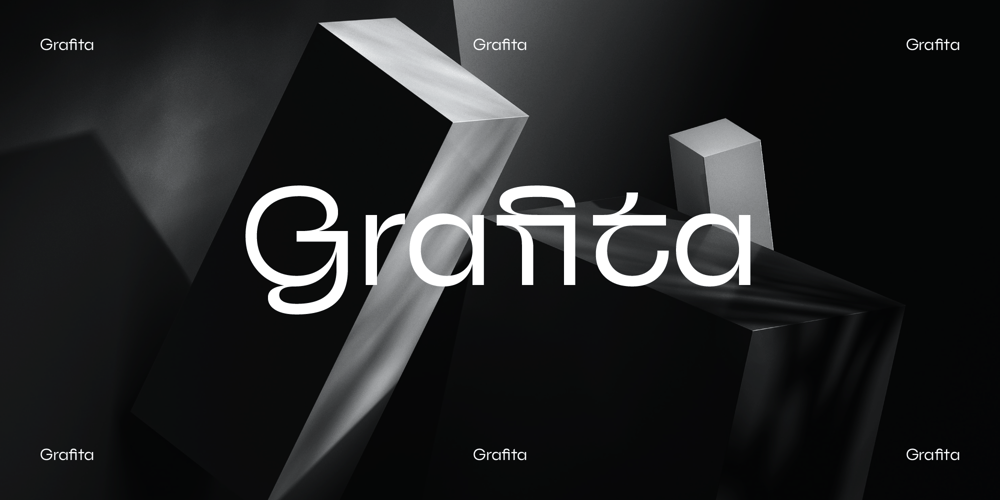
Grafita
Grafita font
Grafita Font Family was designed by Slava Antipov and published by Slava Antipov. Grafita contains 4 styles and family package options. Grafita is a typeface pair consisting of a strict geometric sans serif and a distinctive display font. The first one is versatile and well-suited for setting large amounts of text, while the second one is ideal for headlines, logos, posters, covers, vibrant presentations, and more. The combination of these two fonts provides a perfect solution for branding, websites, and other design tasks. Each font includes alternative styles for some letters, supports Cyrillic, Latin, and OpenType features.